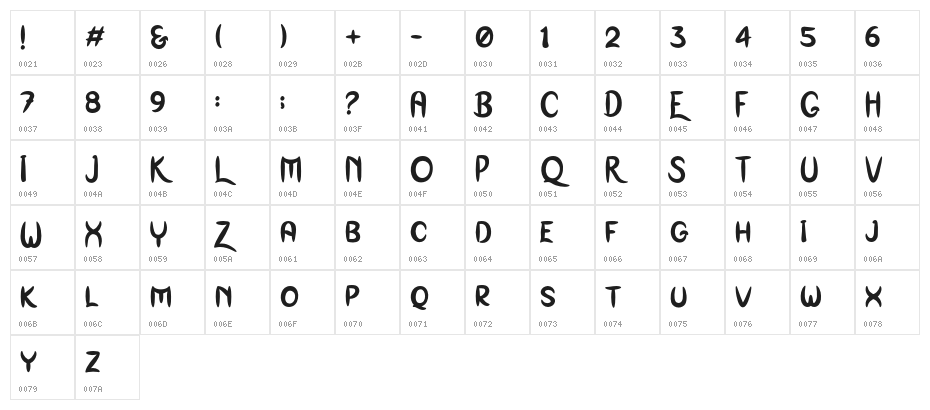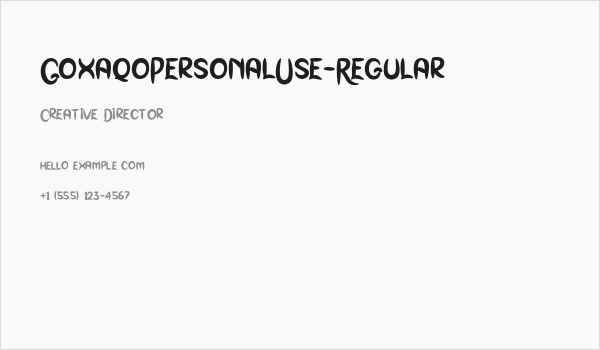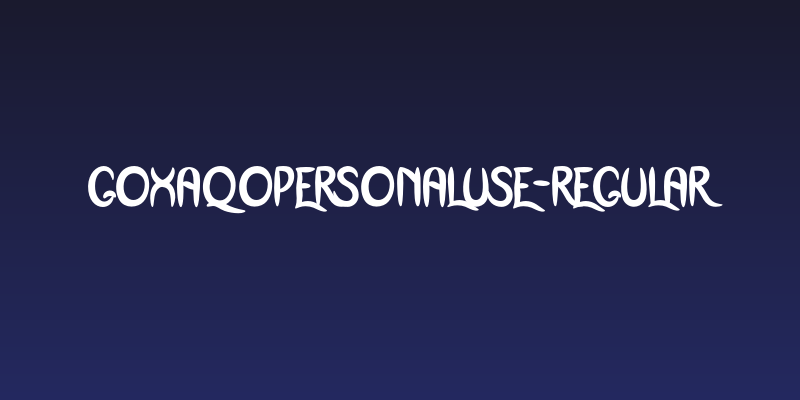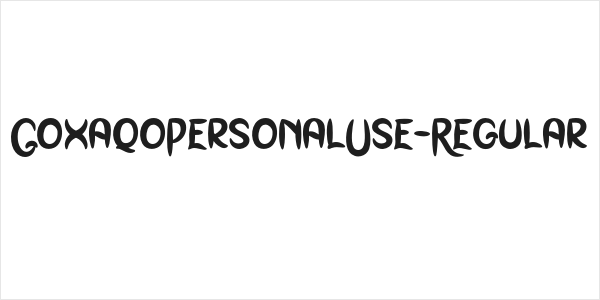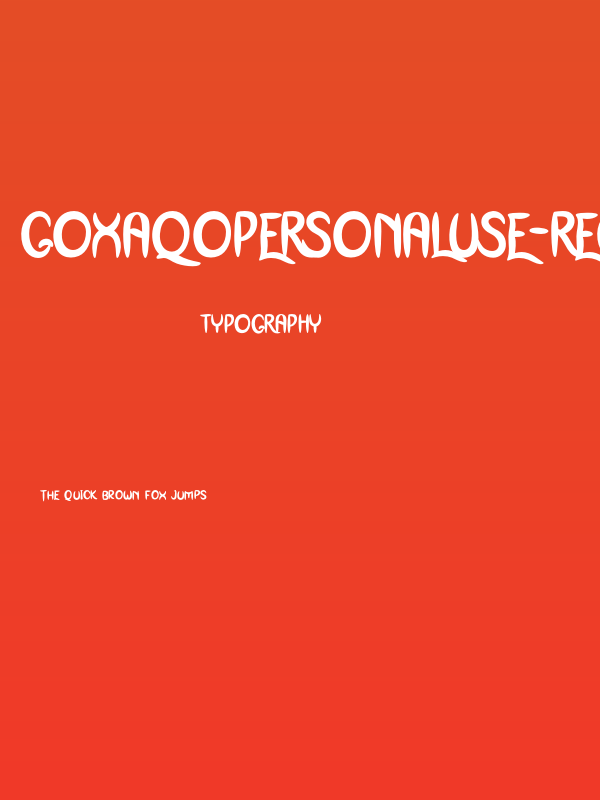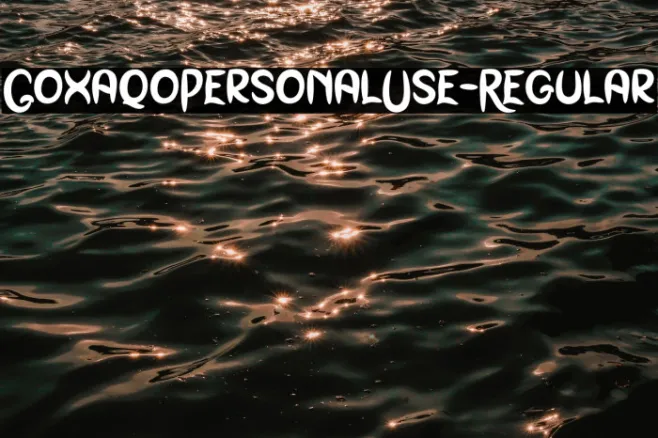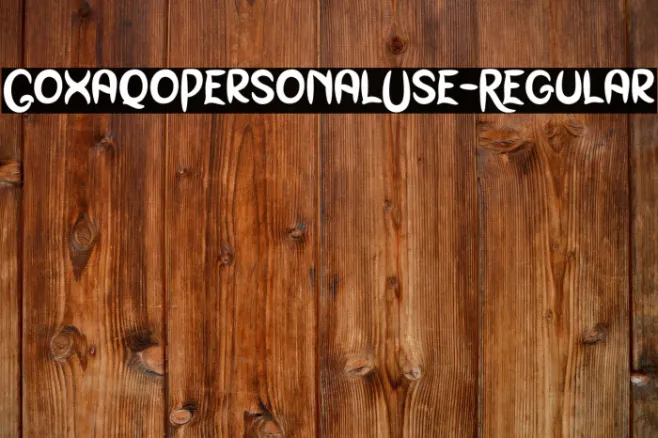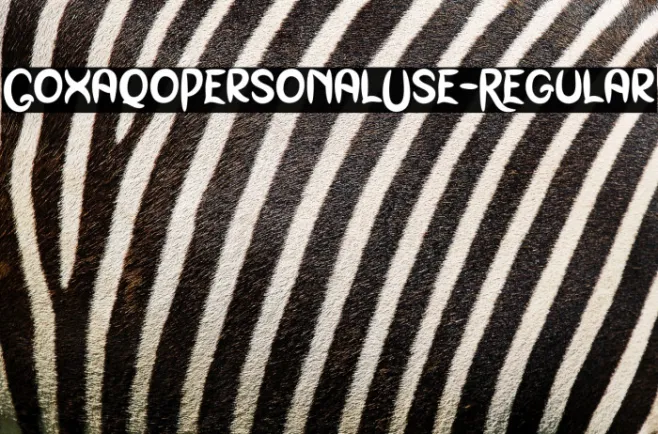
GoxaqoPersonalUse-Regular Font
GoxaqoPersonalUse-Regular Description
This font features a playful and bold style with a hand-drawn appearance. The characters are rounded and slightly irregular, giving it a whimsical and informal look. The uppercase and lowercase letters maintain a consistent style, with the uppercase being slightly more pronounced. Numbers and special characters follow the same playful design, making the font suitable for creative and fun projects. The strokes are thick and uniform, contributing to its bold and eye-catching presence.
| Proposed Projects | Ideal for children's books, comic strips, playful branding, and creative posters. |